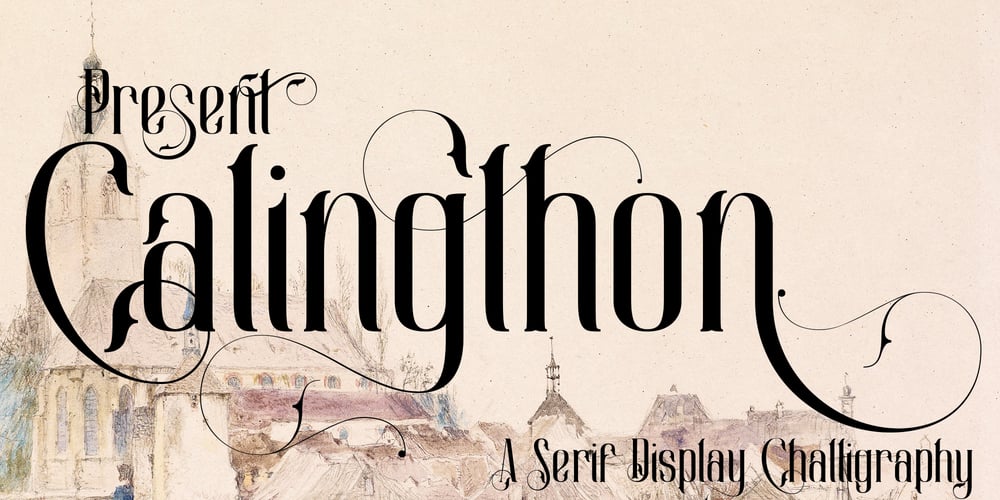
Calingthon Font Family was designed by Ibram Syah and published by Jehansyah. Calingthon contains 1 styles and family package options. calington is a very charming, beautiful and elegant calligraphy font, there are several alternate characters that you can use, it is perfect for all types of your design needs, covers, branding, magazines, invitations and many more